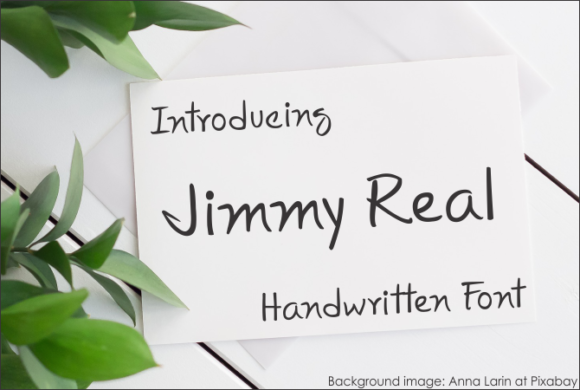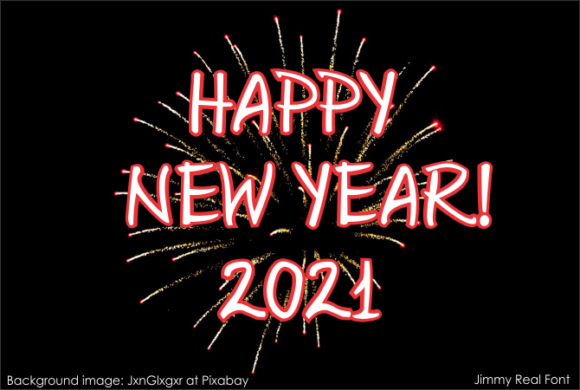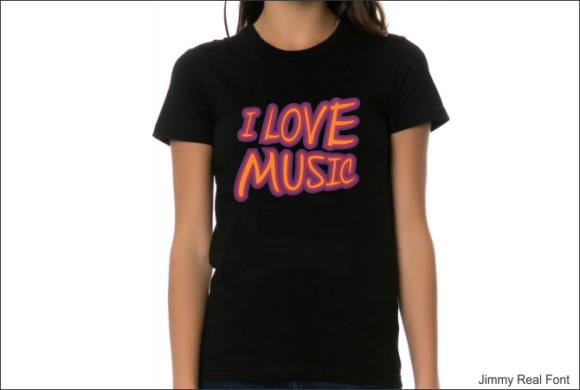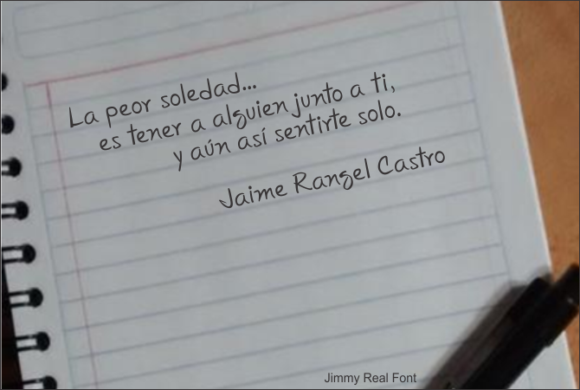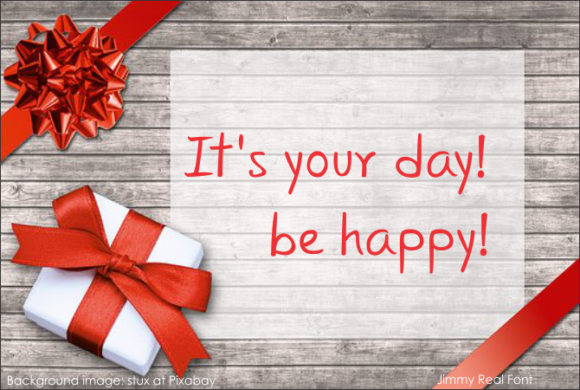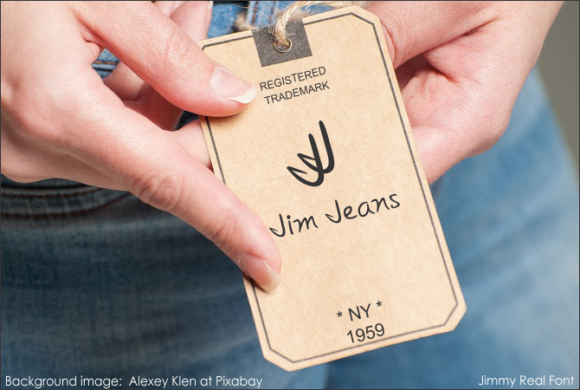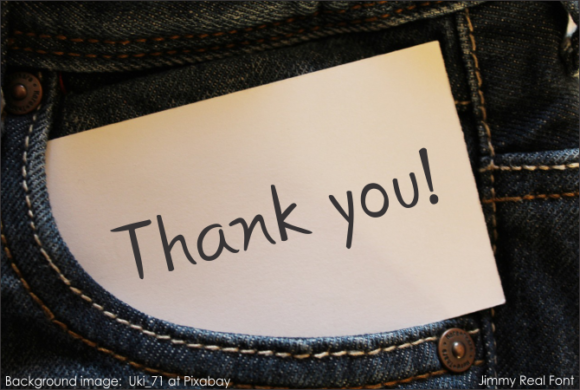
Discover the Magic of Jimmy Real Font
Have you ever found yourself staring at a blank page, trying to conjure up the perfect font to bring your design to life? That’s exactly what happened to me, and it wasn’t until I stumbled upon Jimmy Real Font that the creative dam broke, and my imagination ran wild.
Jimmy Real Font is a beautifully crafted, handwritten font designed to add a touch of elegance and sophistication to any project. Its simplicity and adaptability make it the perfect addition to a wide range of design ideas, from wedding invitations to marketing materials.
For designers, Jimmy Real Font is a valuable tool in their arsenal, offering a level of flexibility and expressiveness that’s hard to find in other fonts. Whether you’re looking to add a personal touch or create a lasting impression, Jimmy Real Font is sure to deliver the results you’re looking for.
Jimmy Real Font Key Features
- Font Family: A modern sans-serif font designed to mimic handwriting, perfect for creating a friendly and approachable atmosphere.
- Unique Characteristics: Distinctive handwritten feel, subtle irregularities, and a relaxed, casual tone make Jimmy Real Font ideal for creative and informal projects.
- Language Support: Supports a wide range of languages, including Latin, Cyrillic, and Greek alphabets, making it a versatile choice for global designs.
Jimmy Real Font Review
Jimmy Real Font is a sans-serif typeface that’s gained attention in recent years for its unique aesthetic. ✨ One of the standout features of this font is its bold, modern look, making it perfect for digital interfaces and modern branding.
Here are some of the key strengths:
- ✨ Unique and modern design that stands out in a crowded market
- ✨ Highly legible, even at small font sizes
- ✨ Excellent for use in digital interfaces, such as websites and mobile apps
- ⚠️ The font may be too bold for certain uses, such as body text or academic writing
- ⚠️ Limited character set, which may cause issues for non-English speakers or languages that require special characters
Overall, I think Jimmy Real Font is a solid choice for designers looking to add some modern flair to their projects. While it may not be suitable for every use case, it’s a great option for those who want to make a bold statement.
Tips for Getting the Most Out of Jimmy Real Font
To maximize the effectiveness of Jimmy Real Font:
- Use it sparingly to add emphasis and visual interest.